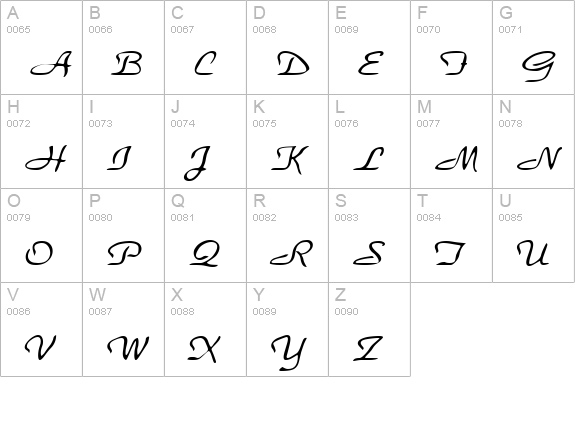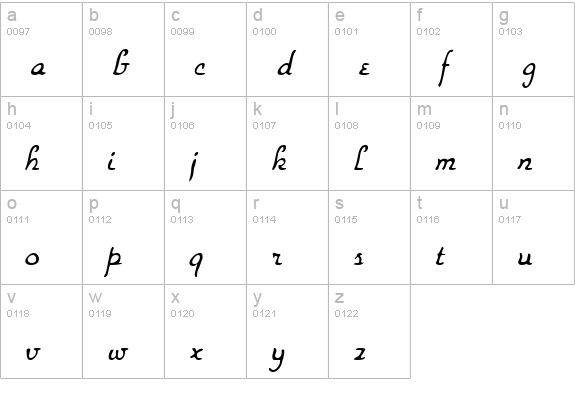
Park Regular is the standard, neutral variant in the Park typeface family \xE2\x80\x94 well suited to general body text, paragraphs, and standard typographic work.
Park Regular font is a stunning typeface that exudes a sense of elegance and sophistication. It is the perfect choice for projects that require a touch of sophistication and class. With its clean lines and balanced proportions, this font is versatile and can be used for a wide range of design applications. The Park Regular font is designed with a timeless aesthetic, making it suitable for both modern and traditional designs. Its smooth curves and sharp edges create a harmonious balance that is visually appealing and easy on the eyes. Whether you're creating a logo, designing a website, or working on a print project, the Park Regular font will elevate your design and make it stand out. One of the best things about the Park Regular font is that it is freely available to download at FontsMarket.com. This means that you can easily access this amazing font without any cost. FontsMarket.com offers a wide range of fonts, and the Park Regular font is just one of the many high-quality options available. So, if you're looking for a stylish and elegant font that won't break the bank, look no further than the Park Regular font. Download it for free at FontsMarket.com and start creating stunning designs today.